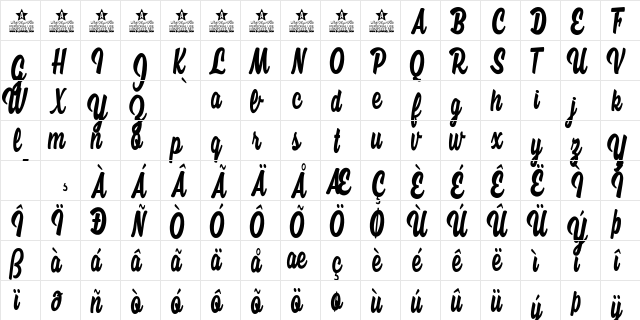
Wisdom Words Personal Use Regular
| Foundry | Billy Argel |
| Designer | Billy Argel |
Design Context for Wisdom Words Personal Use Typeface
Wisdom Words Personal Use is a composed and adaptable typeface that performs quietly and consistently across a wide range of design contexts.